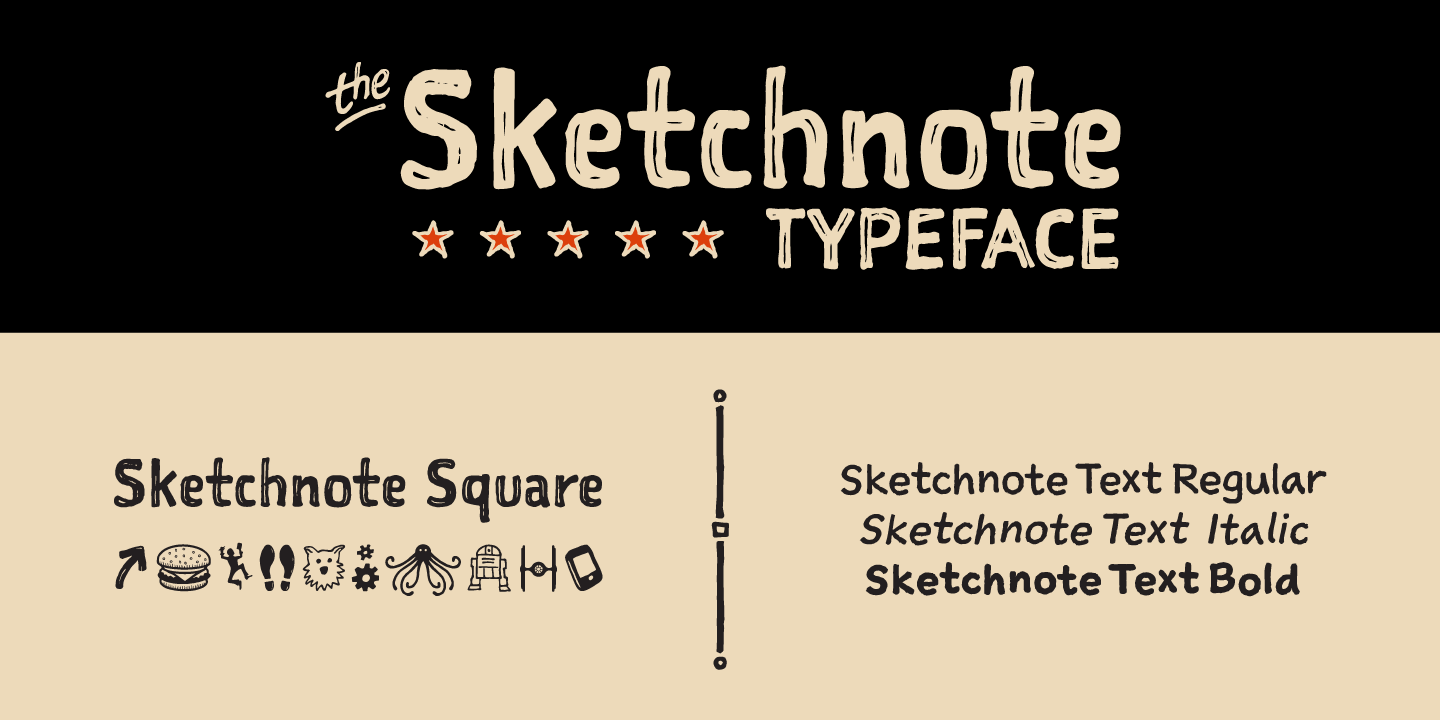
Sketchnote Font is perfect for educational workshop materials, creative brainstorming presentations, hand-drawn infographic designs, visual thinking guides, design process documentation, illustration portfolios, craft project instructions, journaling applications, mind mapping templates, and artistic social media graphics.
Sketchnote Font is exciting because it captures the spontaneous energy and creative flow of hand-drawn notes through its organic, sketch-like letterforms that transform digital text into authentic visual thinking tools while maintaining the personal touch of handwritten communication.
Sketchnote Font family includes Regular, Bold, Light, Marker, Italic, Condensed, Rough, and Pencil variations, offering designers a complete collection of hand-drawn typography elements to create authentic visual narratives that feel personal and approachable.
Sketchnote Font represents the growing movement toward humanized digital communication and visual thinking, making it an essential tool for educators, designers, and creative professionals who want to bridge the gap between digital efficiency and handcrafted authenticity. This approachable typeface brings warmth and personality to any design project, whether you're creating educational materials, developing creative workshop resources, or designing user-friendly interfaces. The naturally imperfect character design of Sketchnote Font Free Download ensures maximum relatability while maintaining excellent readability across both digital screens and printed materials.
Education industry professionals consistently choose Sketchnote Font for learning materials, workshop handouts, and creative curriculum development because of its ability to reduce intimidation and encourage participation. The font's friendly appearance makes it particularly effective for targeting learners of all ages and creating educational experiences that feel approachable and engaging.
Sketchnote Font excels in digital applications where personal connection and user engagement are paramount. App developers creating creative tools, journaling platforms, and educational software leverage this font to establish authentic connections with users who value creativity and personal expression over corporate polish.
The creative services and coaching industries have embraced Sketchnote Font for personal branding, workshop materials, and client communication tools. Its authentic visual character helps professionals create materials that communicate approachability, creativity, and genuine human connection, appealing to clients who seek personalized services and meaningful collaborative relationships rather than corporate formality.